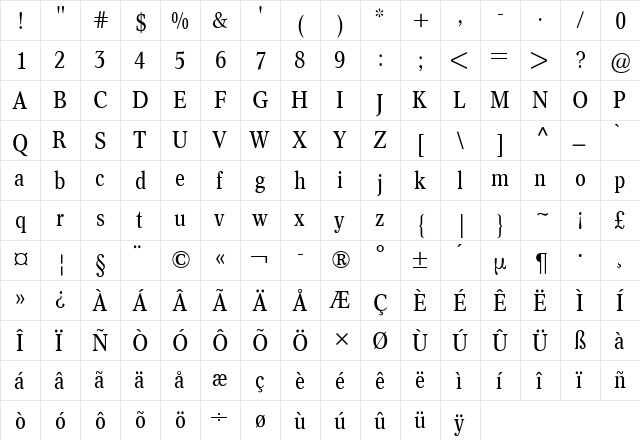
ConcordeCondensedBQ Condensed
Design Context for ConcordeCondensedBQ Typeface
ConcordeCondensedBQ is a composed and adaptable typeface that performs quietly and consistently across a wide range of design contexts. The condensed width makes it efficient for tight spaces without sacrificing legibility.